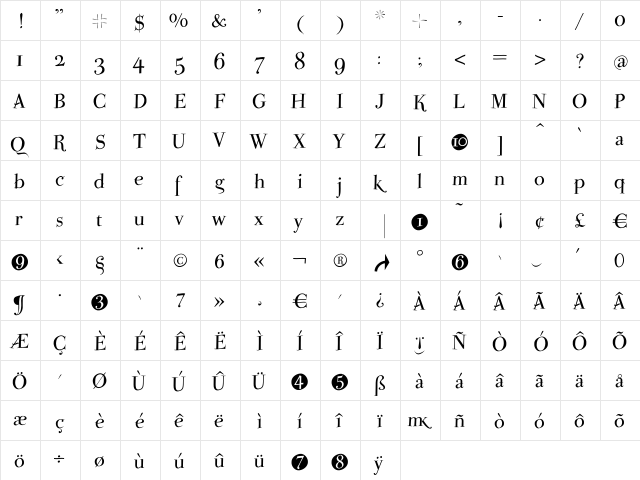
SwingingPetidoni Regular
Design Context for SwingingPetidoni Typeface
SwingingPetidoni takes a measured approach to typography — its balanced proportions and neutral character make it a reliable workhorse for both digital and print work.
Pro Tip: Use SwingingPetidoni in both headline and body roles to test its range before committing to a single application.